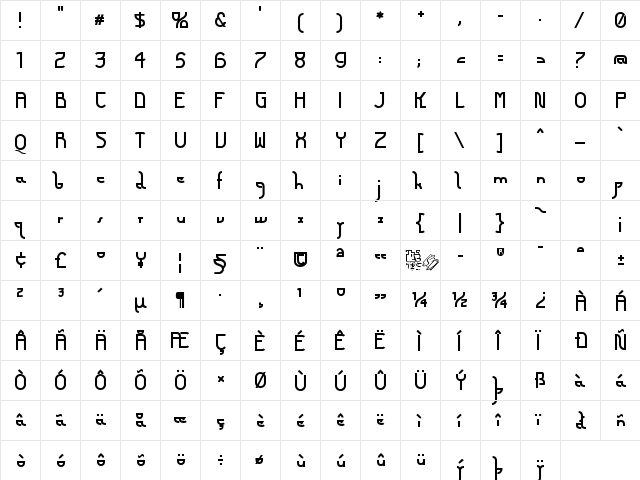
Futurex Arthur Bold
Bold · Graham Meade, Apostrophic Laboratories and Steve Deffeyes  ·
Design Context for Futurex Arthur Typeface
Futurex Arthur has a distinctly futuristic character, with geometric precision and clean angles that feel at home in technology, gaming, and sci-fi contexts. The heavy weight commands attention and anchors typographic hierarchies.